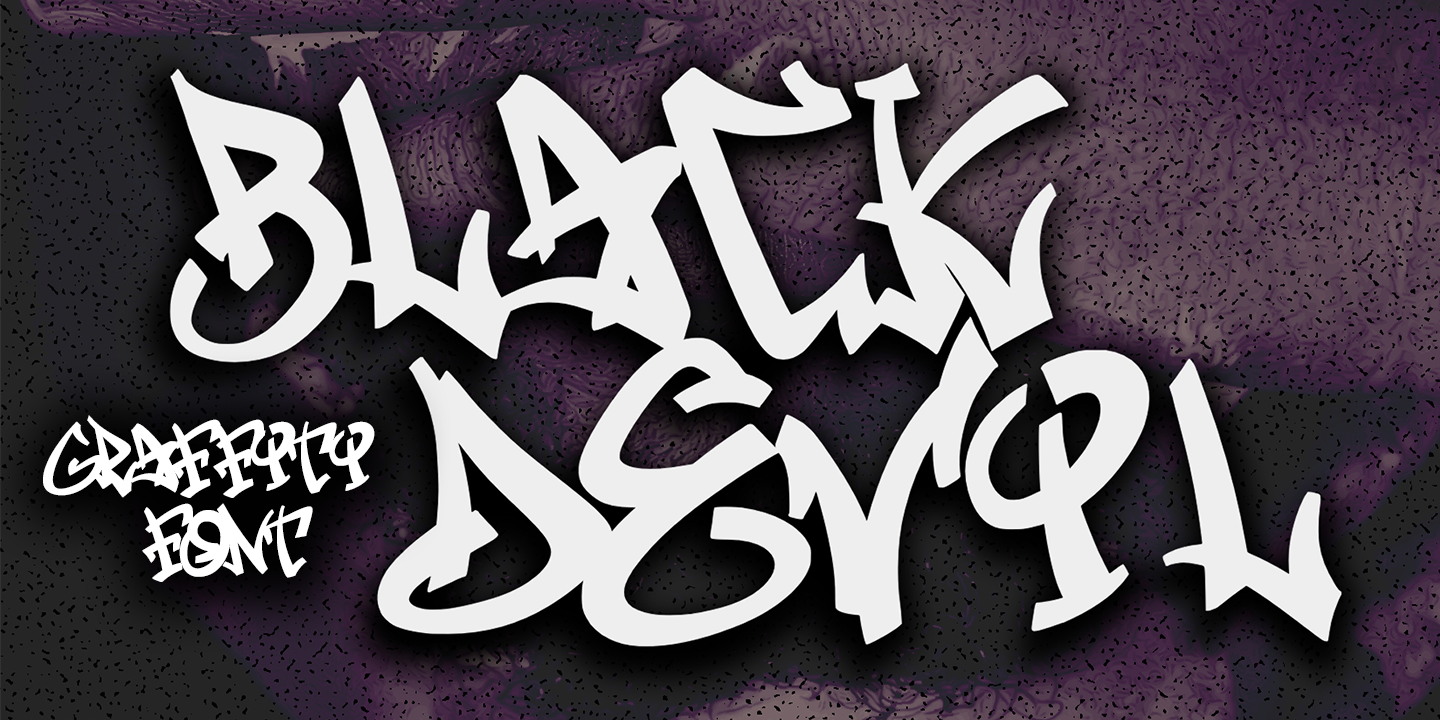
Black Devils Graffiti Font is perfect for urban streetwear branding, underground music venue signage, extreme sports event promotions, rebellious gaming interfaces, alternative culture magazines, edgy entertainment marketing, counter-culture art galleries, and bold youth-focused campaigns. This fierce typeface excels in applications where street authenticity, rebellious energy, and urban edge are essential for connecting with audiences who embrace underground culture and the raw power of street art expression.
What makes Black Devils Graffiti Font so exciting is its explosive embodiment of street rebellion and urban defiance that perfectly captures the essence of underground graffiti culture and the fierce independence of street art movements. The font features bold, spray-painted letterforms with aggressive characteristics that evoke midnight tagging sessions and urban wall murals. Its rebellious character conveys power, defiance, and street credibility - essential qualities for brands serving counter-culture communities, alternative music scenes, and bold audiences who appreciate authentic street art, urban rebellion, and the uncompromising spirit of underground creative expression.
The Black Devils Graffiti Font family includes multiple intense weights and street-inspired variations that enhance its urban appeal. Some versions feature dripping paint effects and spray texture elements that simulate authentic graffiti techniques, while others provide more structured variants that maintain the font's rebellious character with improved readability for commercial street culture applications and professional underground branding communications.
Whether you're creating branding for street culture businesses, designing materials for underground events, or developing marketing campaigns for rebellious lifestyle brands, Black Devils Graffiti Font Free Download provides the authentic street authority your project demands. The font's graffiti character makes it particularly effective for brands targeting youth audiences and counter-culture enthusiasts who appreciate street art authenticity, urban rebellion, and the fierce independence of underground creative movements.
Tag with fierce rebellion using Black Devils Graffiti Font and spray explosive energy into your brand communications with typography that embodies the raw power of street graffiti and underground urban culture.